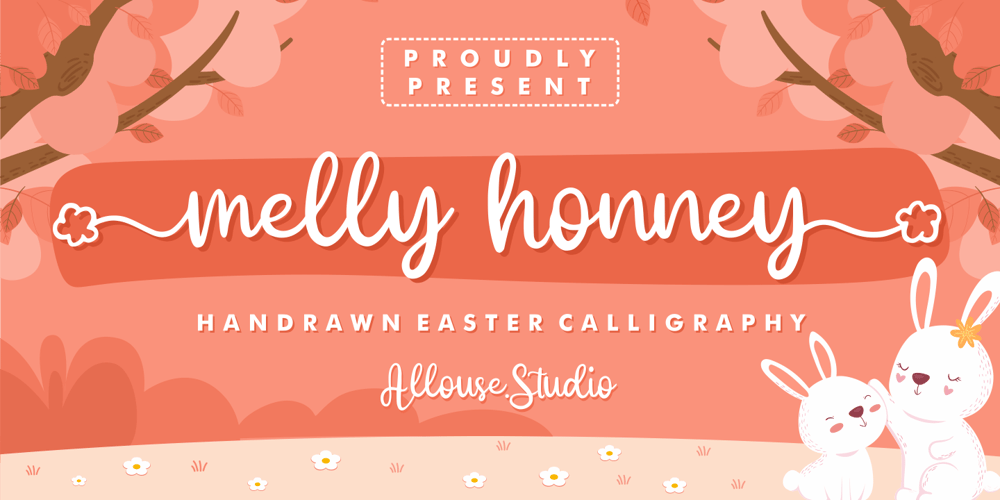
Melly Honney Font Family was designed by Fachrizal Yusuf and published by Allouse Studio. Melly Honney contains 1 styles and family package options. Proudly Present, Melly Honney a Handdrawn Easter Calligraphy.Melly Honney is perfect for any tittles, logo, product packaging, branding project, megazine, social media, wedding, or just used to express words above the background.Melly Honney come with lowercase beginning and ending bunny tail swash also Multi-Lingual Support.We highly recommend using a program that supports OpenType features and Glyphs panels like many of Adobe apps and Corel Draw, so you can see and access all Glyph variations.Enjoy the font, feel free to comment or feedback, send me PM or email. Thank You!